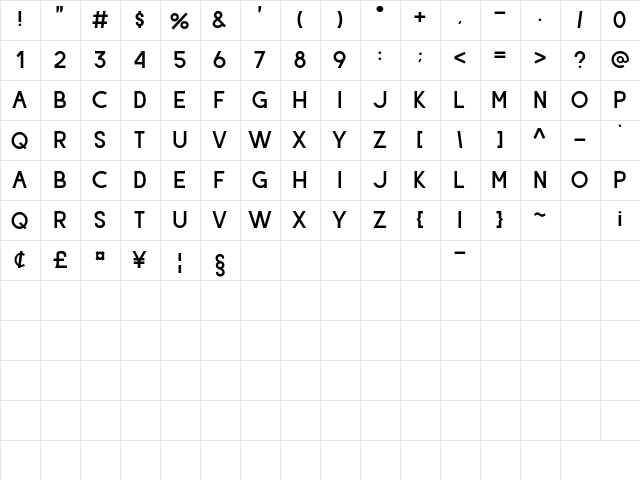
Hiyotori Bold
| Foundry | Shanaya Creative Studio |
| Designer | Wahyu Saputra |
Design Context for Hiyotori Typeface
Hiyotori offers clean, dependable letterforms without strong stylistic allegiance, making it a practical choice for designers who need flexibility. The heavy weight commands attention and anchors typographic hierarchies.